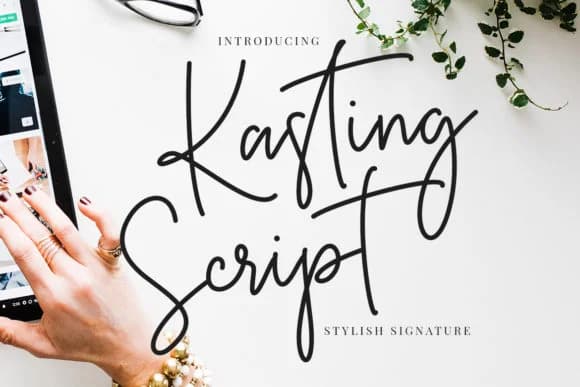
There's something refined about a script that feels handwritten yet polished, personal yet professional. Kasting Script by CreatypeStudio hits that balance perfectly with a flowing signature style that captures elegance without any fussiness. The letterforms move with natural rhythm, each one maintaining its own character while working together smoothly across a full word.
This is the kind of script you instinctively reach for when a project calls for upscale branding work. Wedding invitation suites benefit from its sophisticated flow and that handwritten quality that feels genuine. Artisanal product packaging, whether handmade soap labels, small-batch tea boxes, or botanical skincare containers, gains a real air of care and craft through its forms. Fashion and beauty brands use it regularly for Instagram story graphics and promotional email headers where personality counts more than strict formality. Photography watermarks sit beautifully across images without feeling heavy or intrusive.
The real trick is using it strategically as a headline or accent element rather than attempting body copy. Pair Kasting with a clean, neutral sans-serif like Open Sans or Inter to ensure mixed layouts stay readable and keep the hierarchy clear. Get it from Creative Fabrica and see what it brings to your next project.
Kasting Script Font is a script font that shines as a display or heading face. Pair it with a clean sans-serif or serif font for body text β the contrast creates a clear hierarchy while the two styles stay balanced and easy to read.